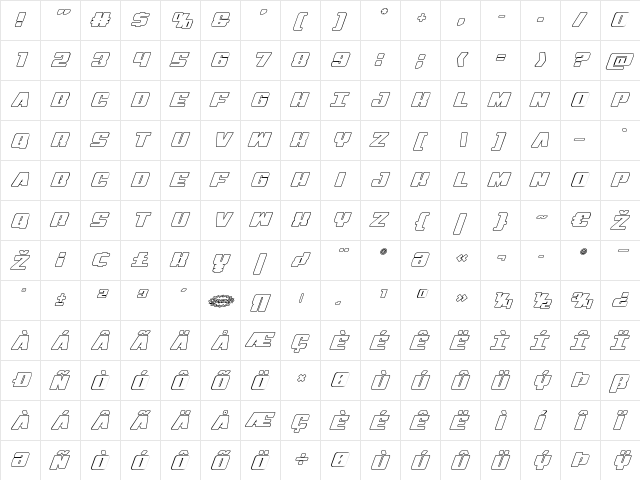
Virgin Hybrid Outline Regular
Design Context for Virgin Hybrid Outline Typeface
Virgin Hybrid Outline is built around its visual character rather than neutral utility — its distinctive forms are designed to make an impression at display sizes.
Font Pairing: Pair with a clean neutral sans-serif for body copy to let Virgin Hybrid Outline's character lead without overwhelming the composition.
Pro Tip: Use Virgin Hybrid Outline exclusively at display sizes — it was designed to be seen, not read at length. Let a neutral companion handle body copy.